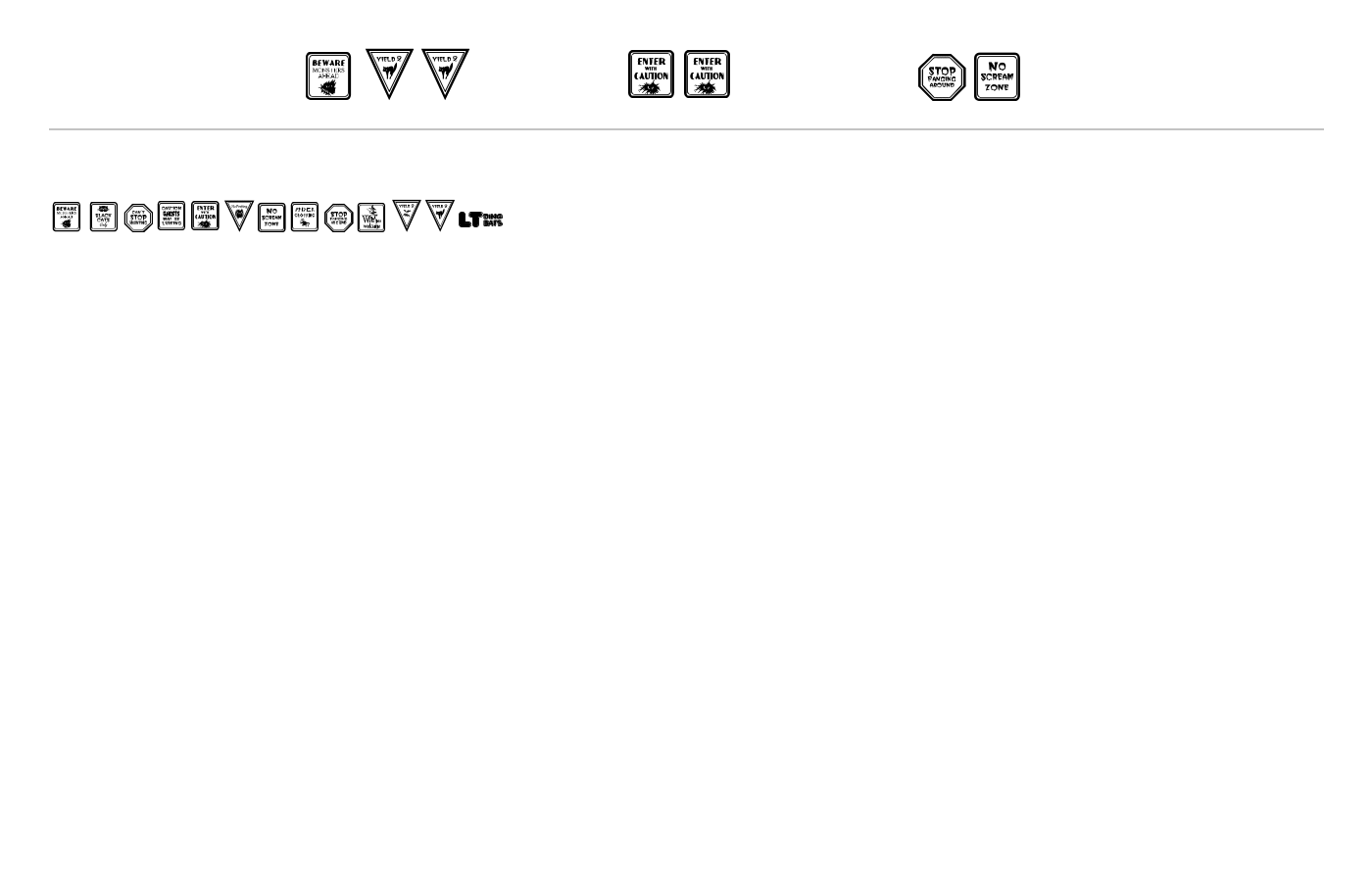
12 Halloween Signs LT is a playful, bold display font that mimics vintage Halloween-themed warning signs with quirky, uneven letterforms and a slightly distressed look. Its chunky, irregular shapes and all-caps style create a fun, spooky vibe perfect for seasonal designs, party invitations, and themed branding. This font works especially well in headlines and decorative contexts where a quirky, eerie atmosphere is desired.
12 Halloween Signs LT Font